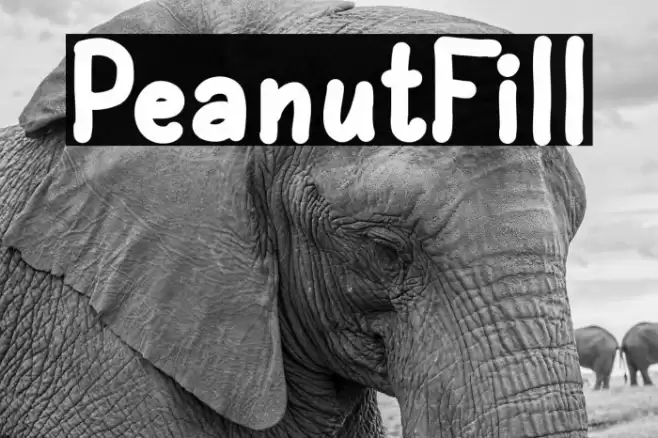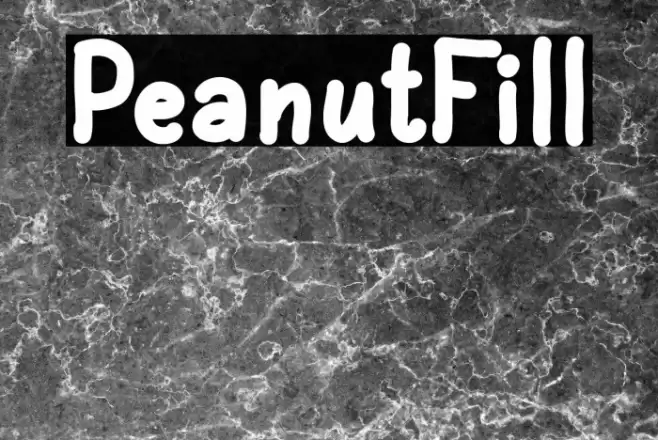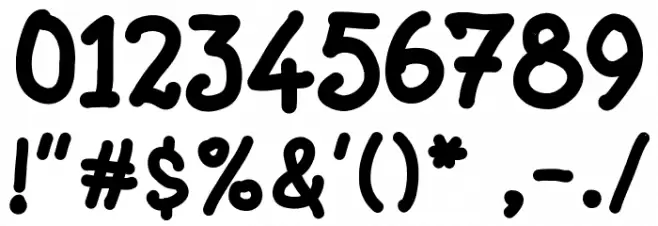
PeanutFill Font
PeanutFill Description
This playful and bold font features rounded, thick strokes that give it a friendly and approachable appearance. Each character is slightly irregular, adding a hand-drawn, whimsical quality. The uppercase and lowercase letters maintain a consistent weight, while the numerals and special characters complement the overall style with their rounded forms. The font's design is reminiscent of casual handwriting, making it ideal for projects that require a personal touch. Its boldness ensures readability, while the rounded edges soften the overall look, making it suitable for a variety of creative applications.
A playful, bold font with rounded, hand-drawn characters from Cartoon fonts.
- Proposed Projects: Ideal for children's books, playful branding, greeting cards, and casual invitations.
- Overall Style: Playful
- Use Case: Headlines, Logos, Casual Text